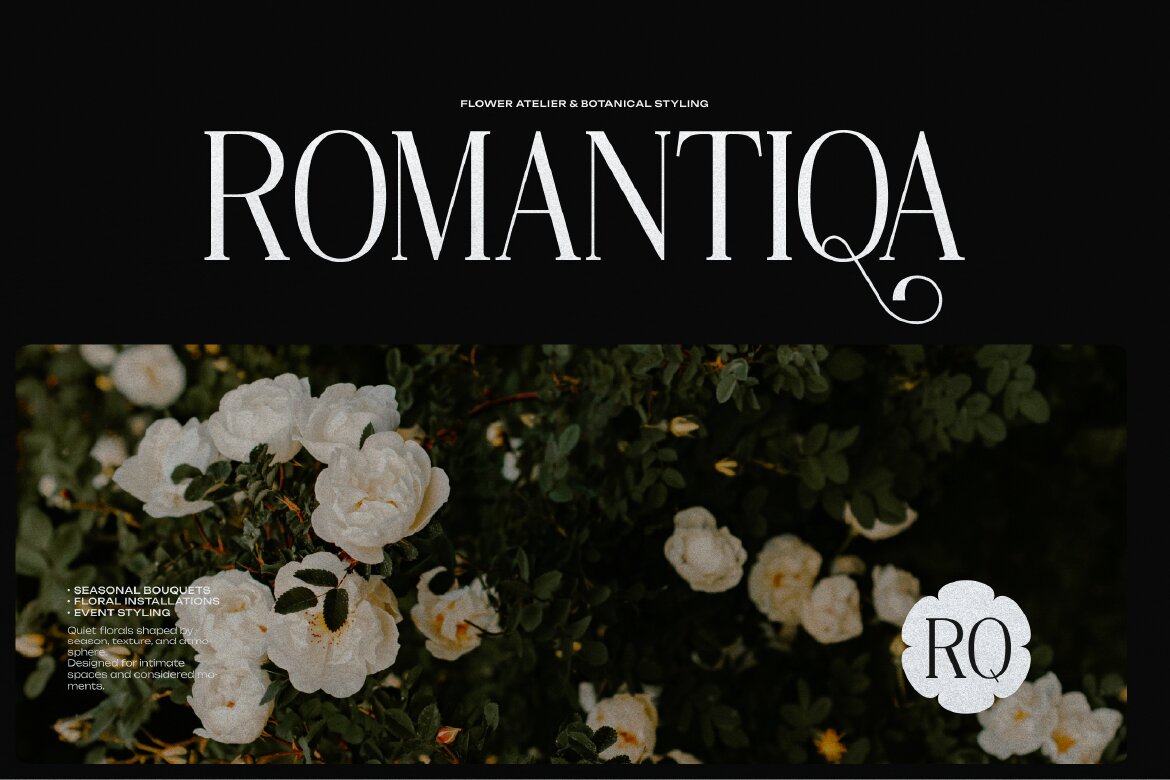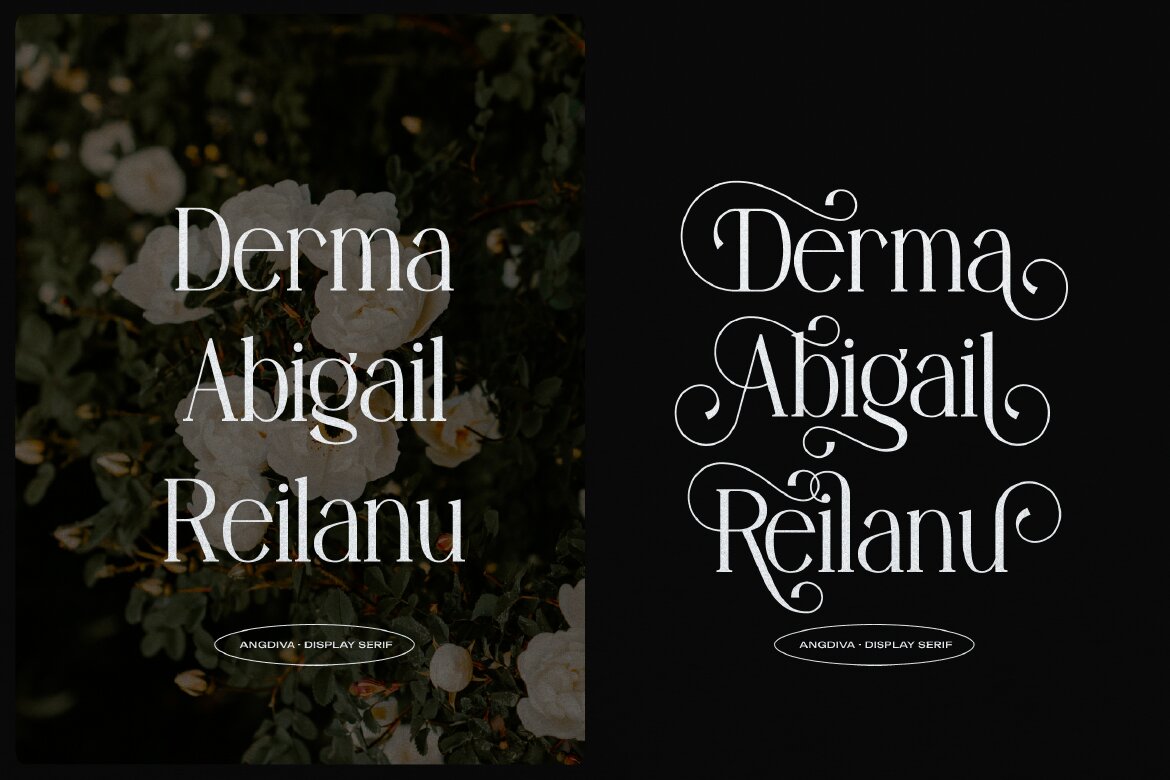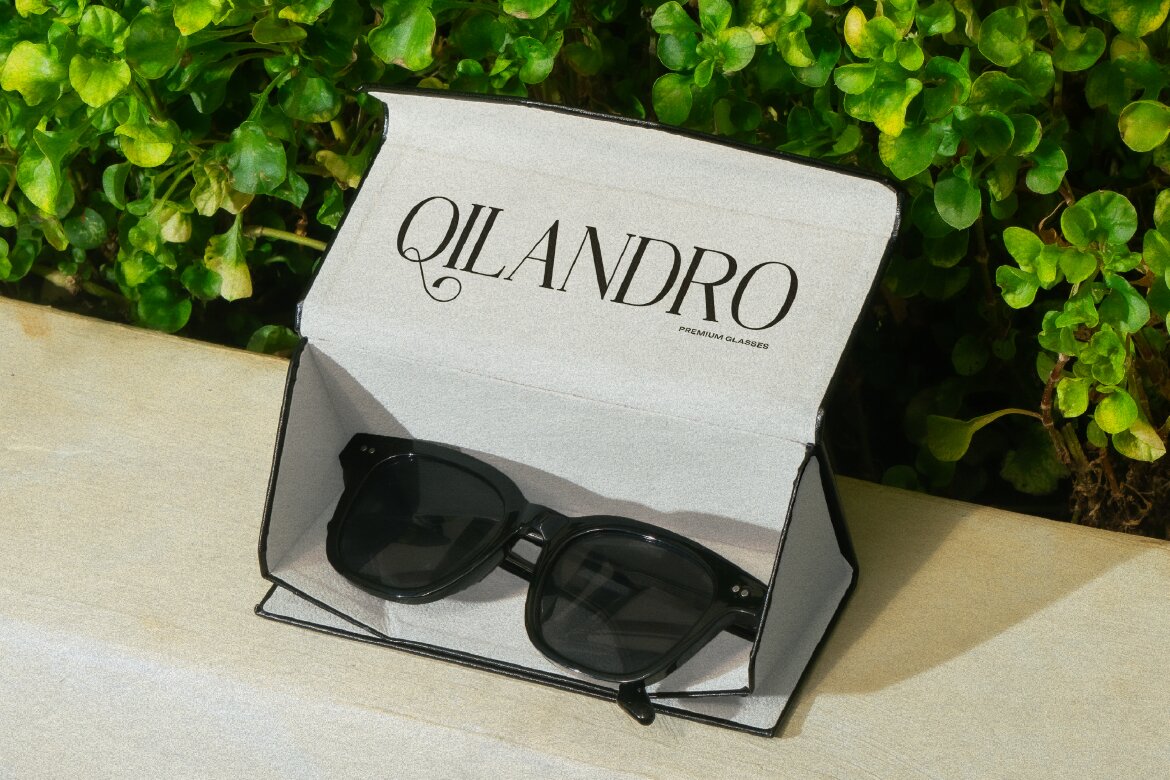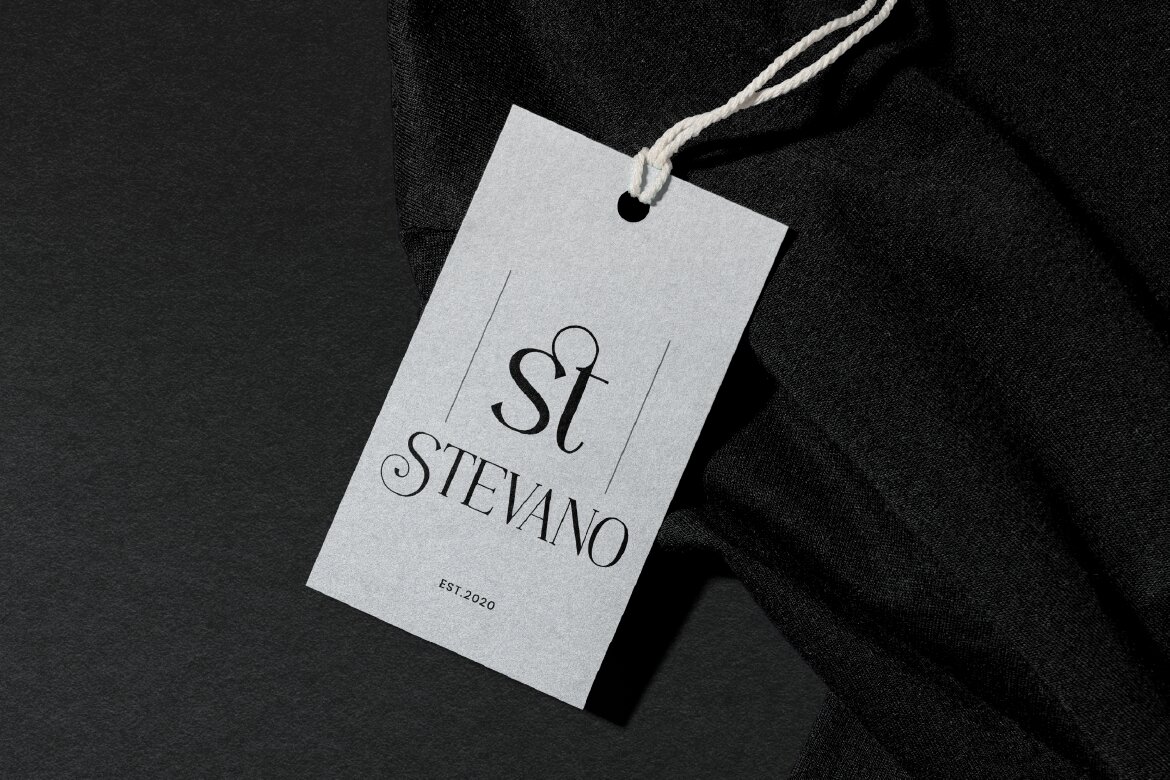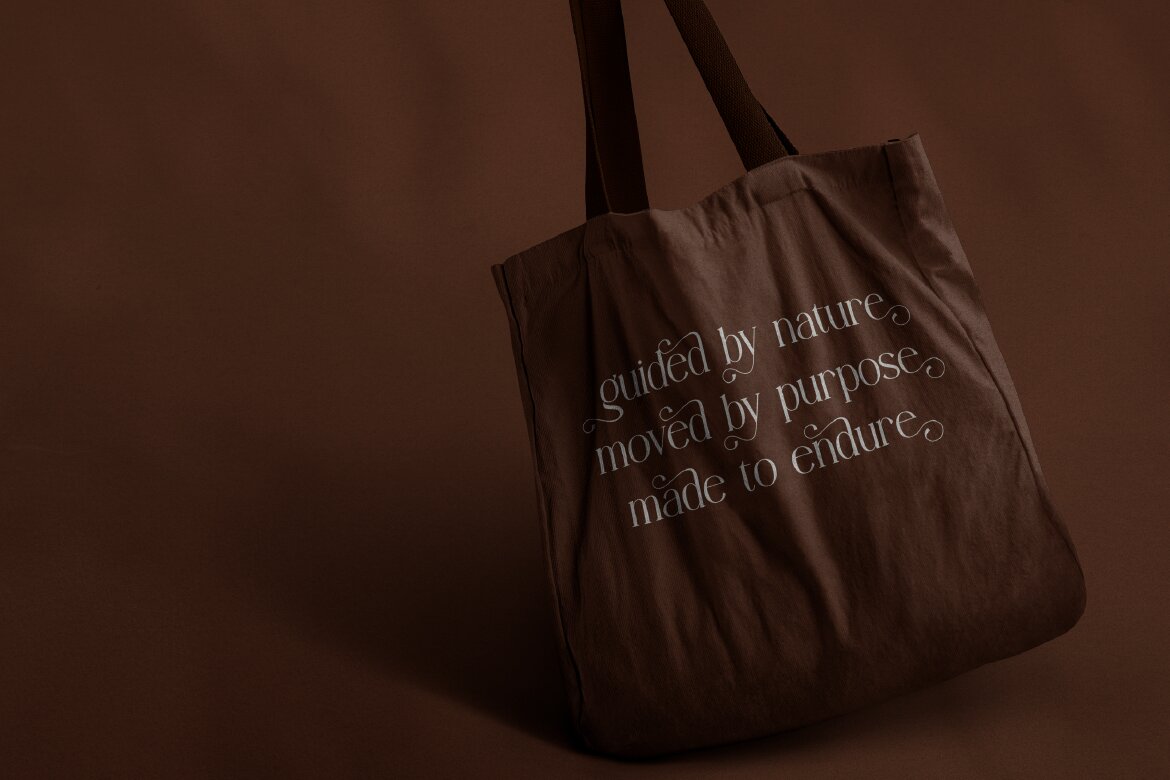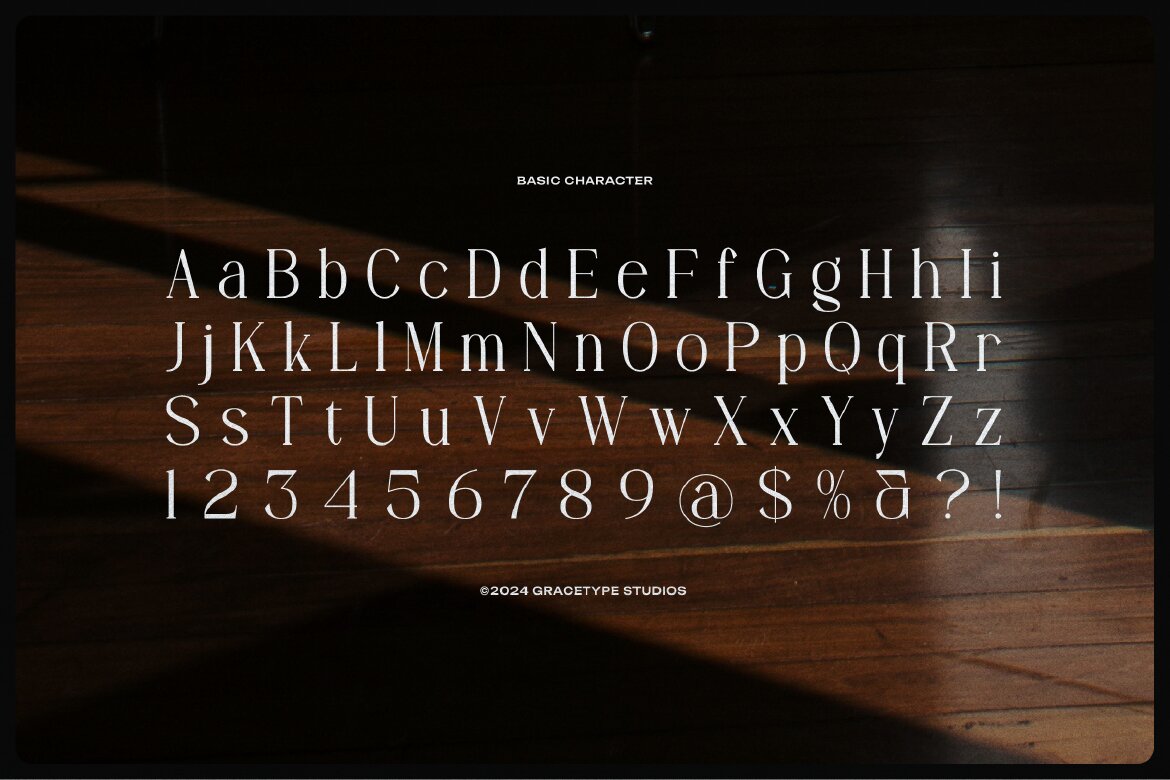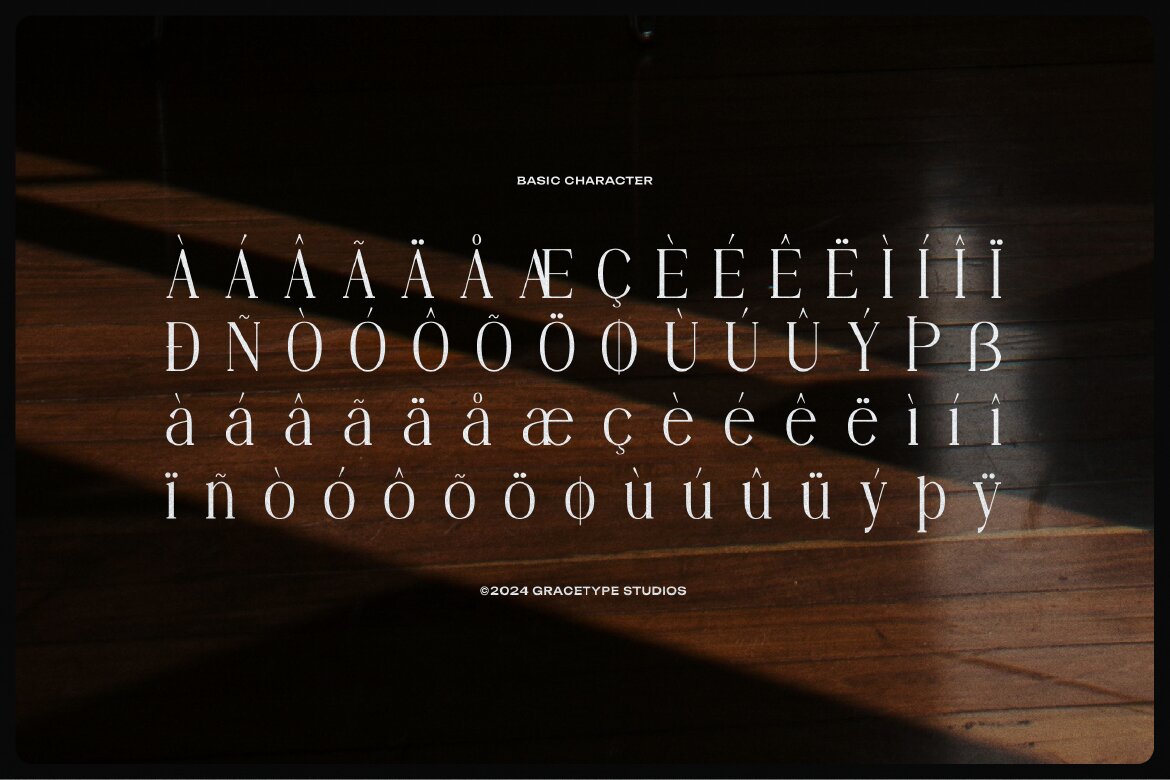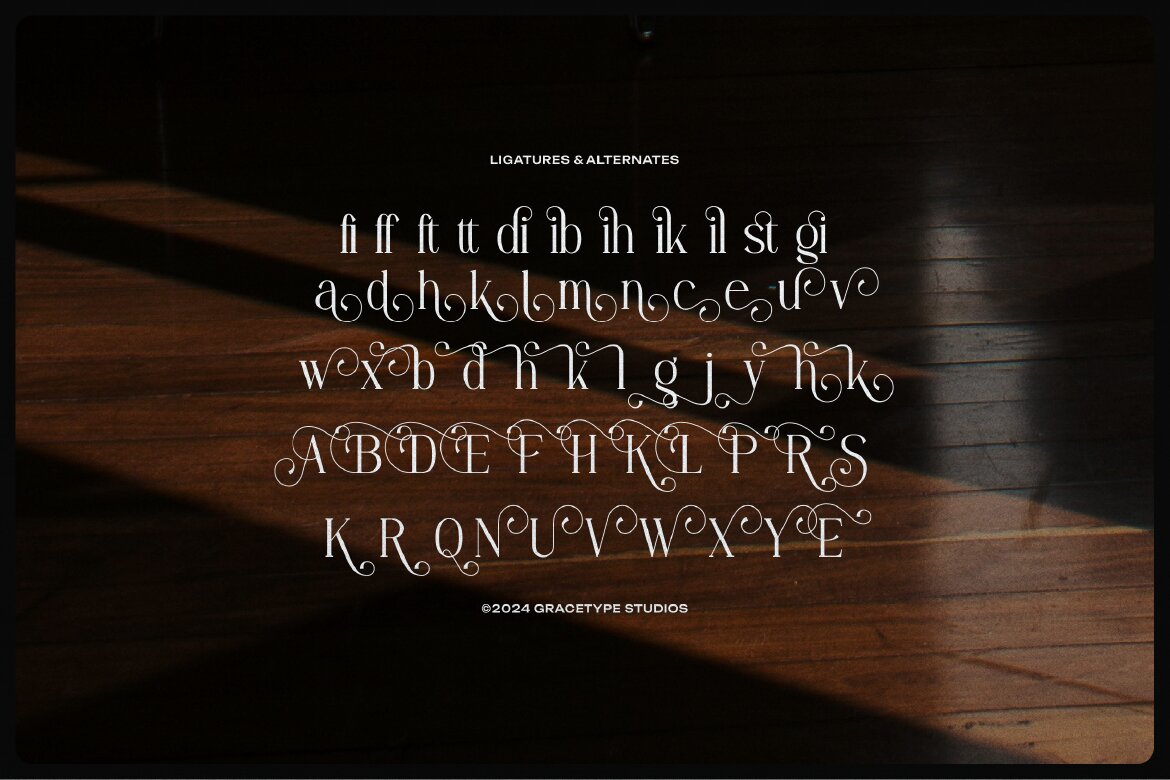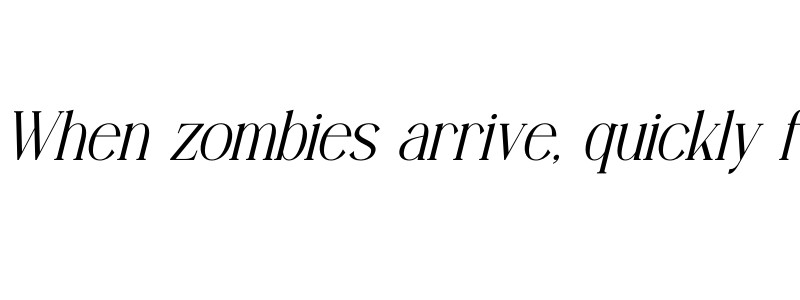
Angdiva | Display Serif Font
Angdiva | Display Serif Font from Gracetypestudio, suitable for any projects such as: logos, branding projects, homeware designs, product packaging, mugs, quotes, posters, shopping bags, t-shirts, book covers, name card, invitation cards, greeting cards, label, photography, watermark, special events, and all your other lovely projects that need a Serif taste.
• • Ligature/Alternates Characters
• • Multilingual
• • Numbers and punctuation
• • Uppercase & lowercase